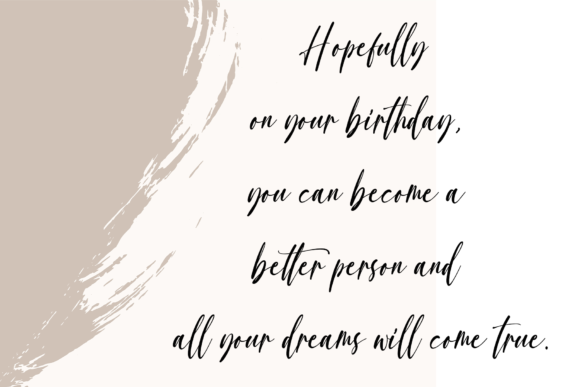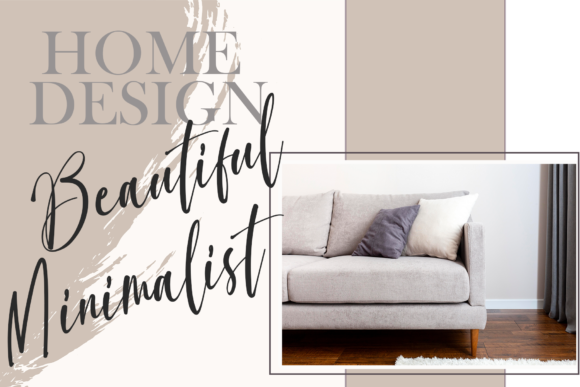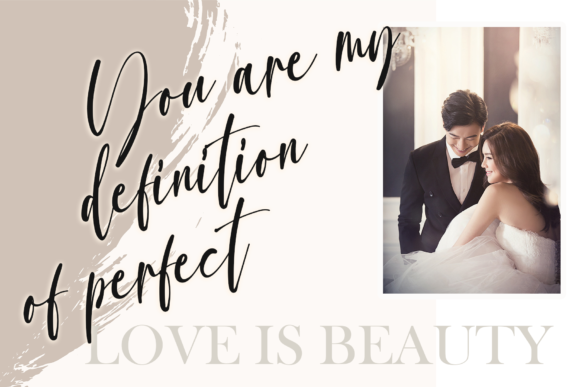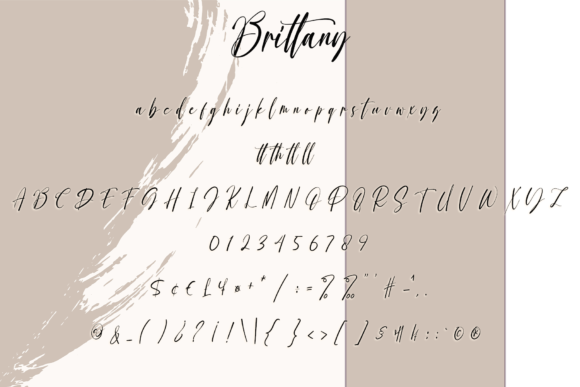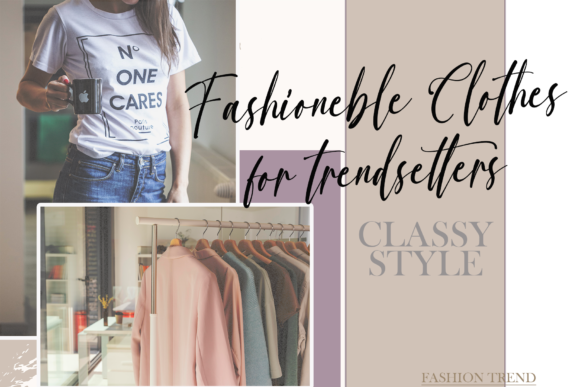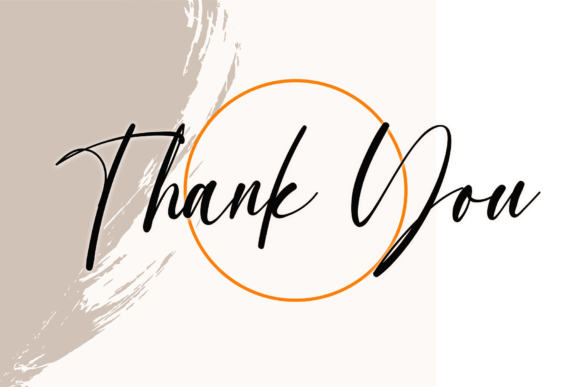
Discover the Magic of Handwritten Perfection with Brittany Font
Remember that moment when you finally find the perfect font to bring your creative idea to life? For many designers, it’s like a breath of fresh air, a spark that ignites a thousand possibilities. And for those who’ve been searching for a font that embodies elegance and sophistication, we’re excited to introduce you to Brittany Font – a magical script font that’s about to become your new best friend.
Brittany Font is more than just a font; it’s a tool that lets you unlock your creative potential. Whether you’re designing graphics for Instagram, creating calligraphy scripts for DIY projects, or simply looking for a font that adds a touch of class to your documents, Brittany Font is the perfect companion. Its unique blend of style and versatility makes it a valuable asset for designers who want to elevate their work to the next level.
Brittany Font Key Features
- Font Family: Brittany
- Font Style: Script
- Unique Characteristics: Elegant, cursive, and flowing script style with a touch of modernity, suitable for invitations, wedding cards, and other decorative purposes
Brittany Font Review
I recently had the chance to work with the Brittany font, and I must say, it’s a delightful addition to any design project. ✨ The font’s friendly and approachable nature makes it perfect for body text and titles where you want to convey a sense of warmth and welcoming.
- ✨ The font’s rounded edges and soft curves give it a very approachable feel, making it suitable for a wide range of applications.
- ✨ The font is highly legible, even at small sizes, which is a big plus for designers who need to balance readability with aesthetics.
- ✨ The font is highly customizable, allowing designers to adjust the weight, width, and other parameters to suit their design needs.
However, there are a few limitations to be aware of. ⚠️ The font may not be the best choice for formal or technical documents, as it can come across as a bit too casual. Additionally, the font may not be as versatile in certain languages or character sets, which could be a concern for designers working with international clients.
Overall, I’m impressed with the Brittany font and would definitely recommend it for designers looking for a friendly and approachable typeface. With its high level of customizability and legibility, it’s a great choice for a wide range of design projects.
For best results, use the Brittany Font in conjunction with a clean and minimalist design aesthetic. This font is particularly well-suited for wedding invitations, baby shower invitations, and other special occasion graphics. Additionally, consider using the font in combination with other decorative elements, such as floral patterns or illustrations, to add a touch of elegance and sophistication.